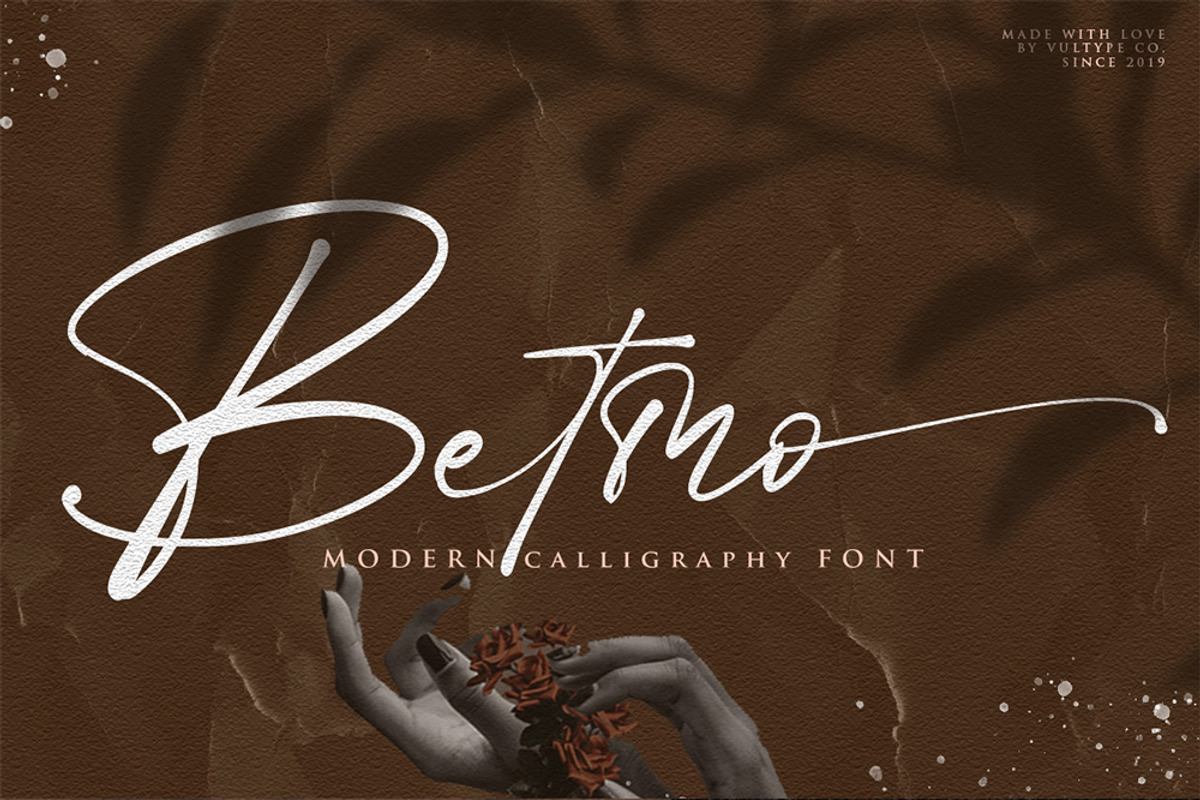
Betmo // Delight Calligraphy Font Free Download is a graceful and flowing script typeface that exudes charm, elegance, and romance. Perfect for wedding invitations, beauty branding, thank-you cards, logos, and upscale packaging, this font features delicate curves and natural swashes that bring a handwritten luxury feel to your designs.
Its smooth calligraphic strokes and fine details make it ideal for both digital and print projects where you want to create a soft, stylish impression. Whether you're designing for an event or a personal brand, Betmo adds a touch of refinement and warmth. You can test it freely, but a commercial license is required for any business or monetized use.
Enhance your designs with timeless elegance using Betmo // Delight Calligraphy Font Free Download—the perfect script for creators who want to mix romance, beauty, and authenticity in every letter.